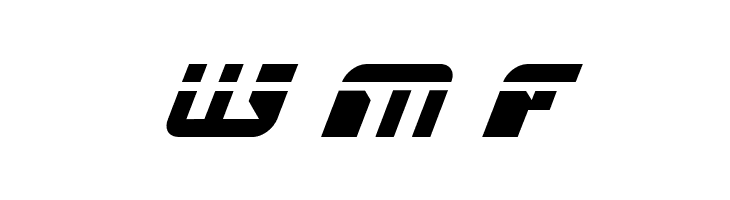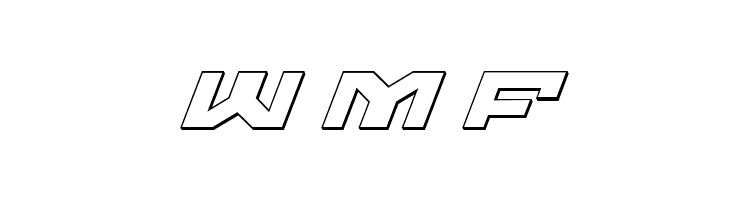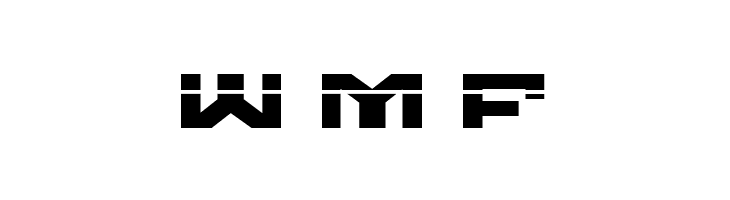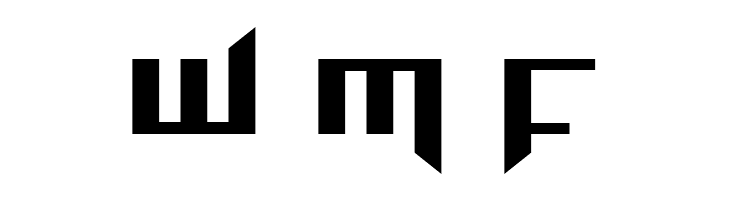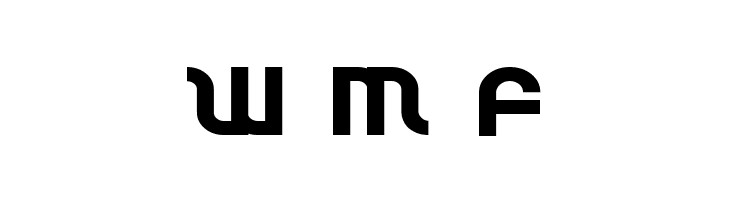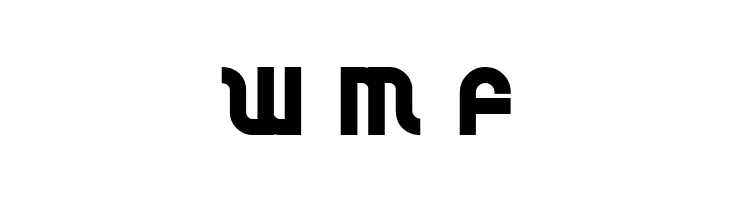
A bold, futuristic, and geometric font with a condensed style.
A bold, futuristic font with geometric, stencil-like characters.
A bold, futuristic, and angular italic font with a high-tech appearance.
A bold, geometric, and futuristic font with a condensed style.
A bold, futuristic font with geometric, outlined characters.
A bold, angular font with a futuristic and high-tech style.
A bold, futuristic font with geometric and angular design elements.
A bold, futuristic font with geometric shapes and wide characters.
A futuristic, geometric font with a 3D effect and sharp angles.
A bold, futuristic font with geometric angles and a sci-fi aesthetic.
A bold, 3D italic font with a futuristic and dynamic design.
A futuristic, 3D, italic font with a bold, geometric design.
A bold, outlined, italic font with a modern, futuristic style.
A bold, geometric font with a shadow effect and italic slant, offering a futuristic and dynamic appearance.
A futuristic, angular font with a dynamic slant and outline style.
A futuristic, angular font with bold geometric shapes.
A bold, angular font with a futuristic and geometric design.
A futuristic, geometric font with a bold, stencil-like design.
A futuristic, angular font with a bold, dynamic slant.
A bold, futuristic font with sharp, angular lines and geometric shapes.
A futuristic, angular font with sharp edges and geometric shapes.
A futuristic, angular font with a shadow effect and bold geometric shapes.
A futuristic, angular font with a 3D shadow effect, ideal for sci-fi themes.
A bold, italic, futuristic font with sharp angles and a robotic feel.
A futuristic, 3D-outlined font with angular, geometric shapes and a consistent slant.
A bold, futuristic font with geometric shapes and a three-dimensional outline.
A bold, futuristic font with geometric shapes and expanded width.
A bold, futuristic font with geometric shapes and dynamic style.